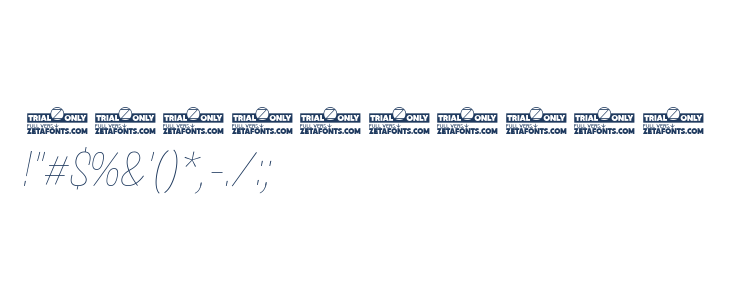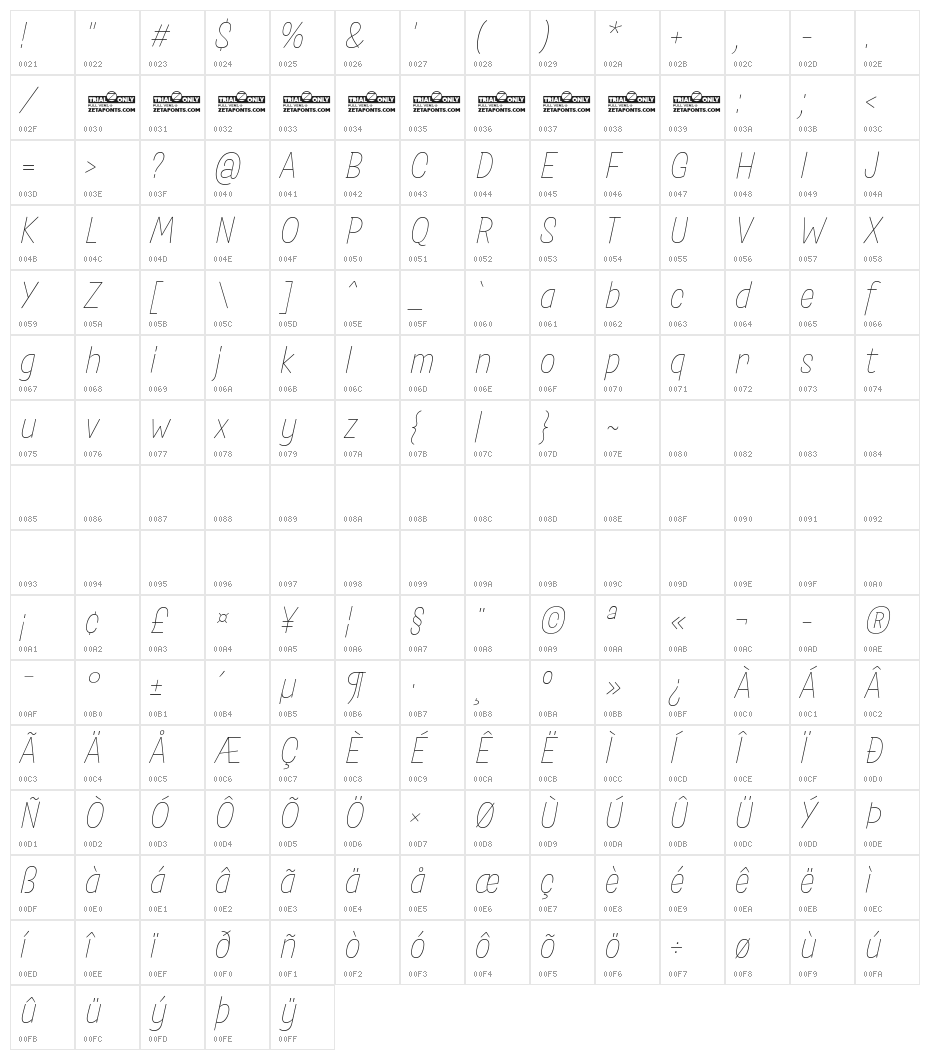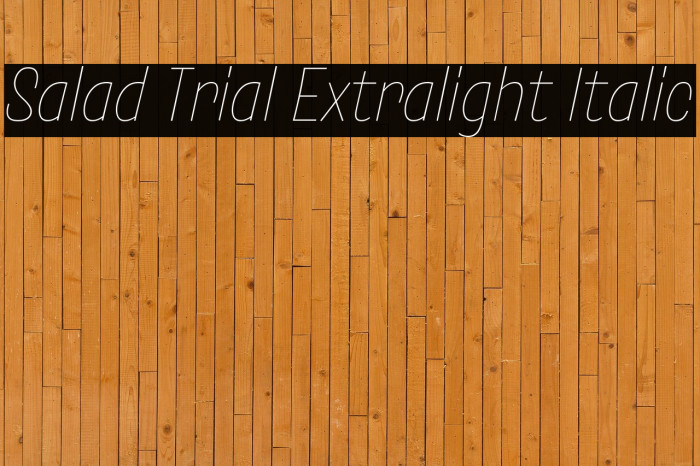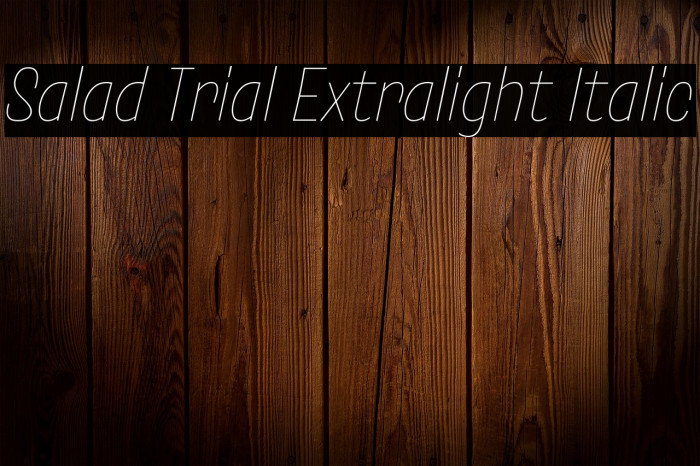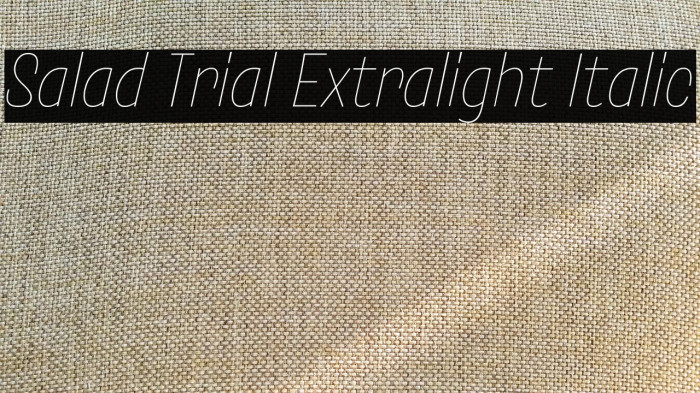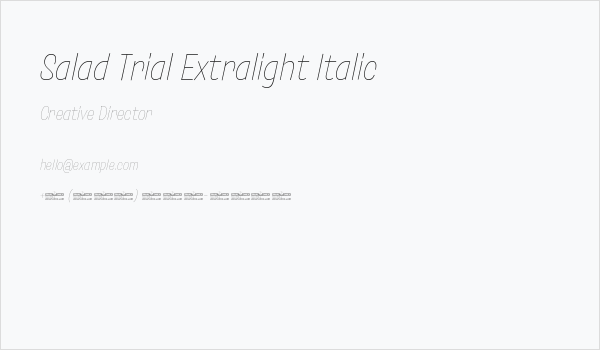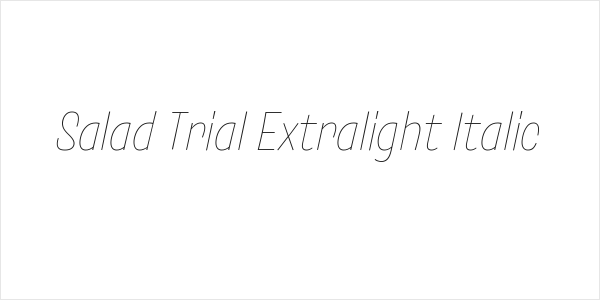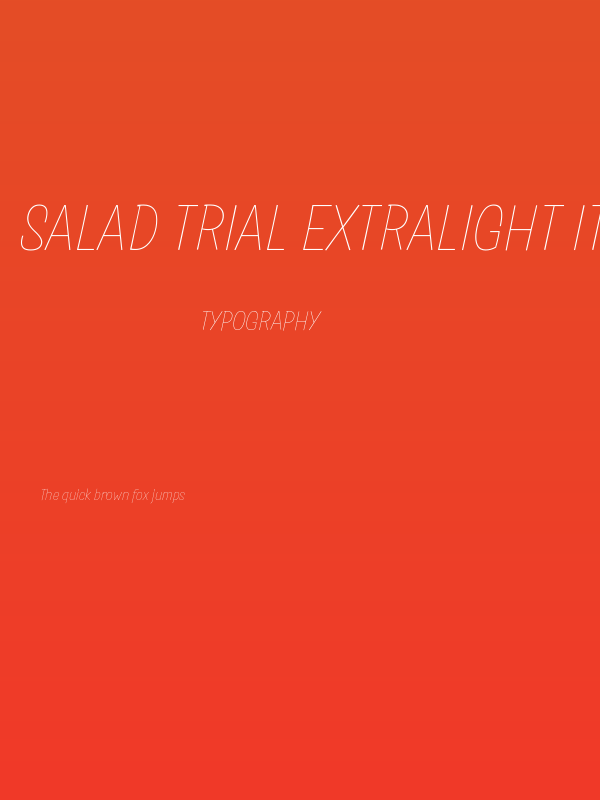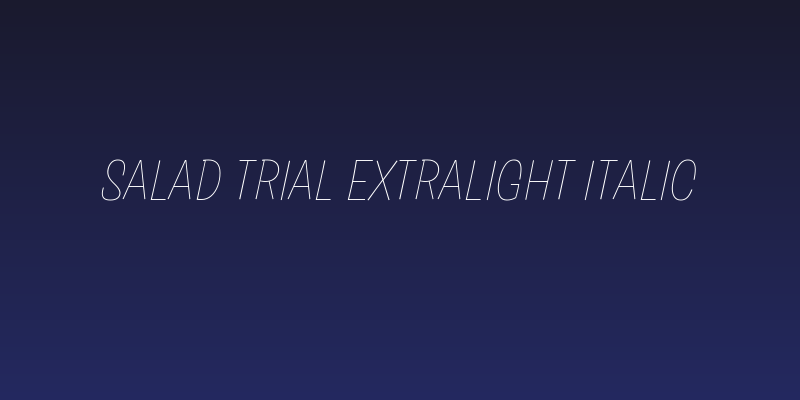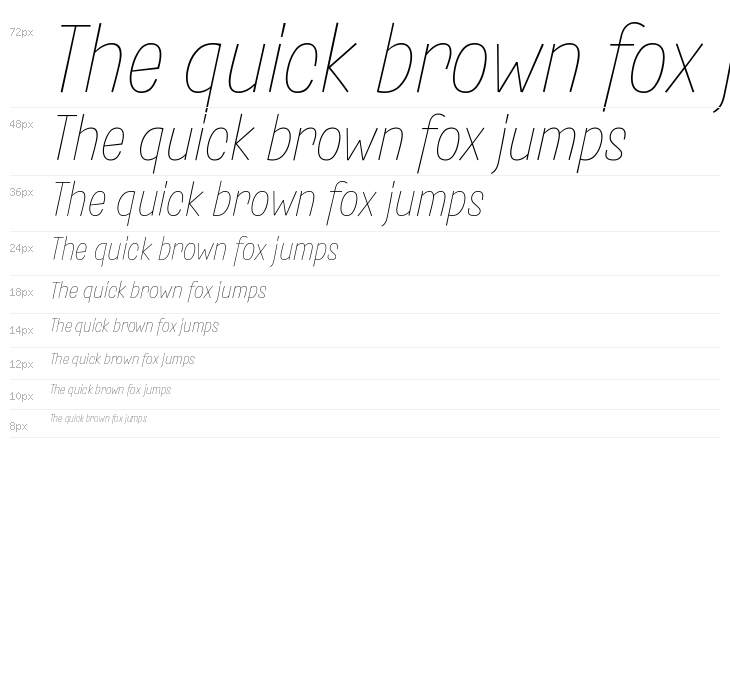
Salad Trial Extralight Italic Font
Salad Trial Extralight Italic Description
This font exhibits a sleek and modern design with an extra-light weight and italic style. The characters are elegantly elongated with a slight slant, giving it a sophisticated and contemporary appearance. The thin strokes and minimal contrast between thick and thin lines contribute to its airy and delicate feel. The spacing between characters is normal, allowing for readability while maintaining a stylish flow. This font is ideal for projects that require a touch of elegance and modernity, such as fashion magazines, luxury branding, or high-end product packaging.